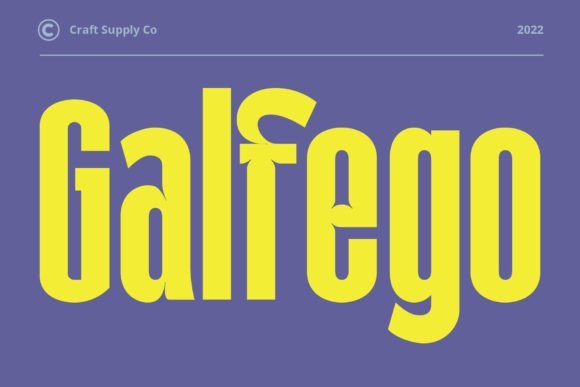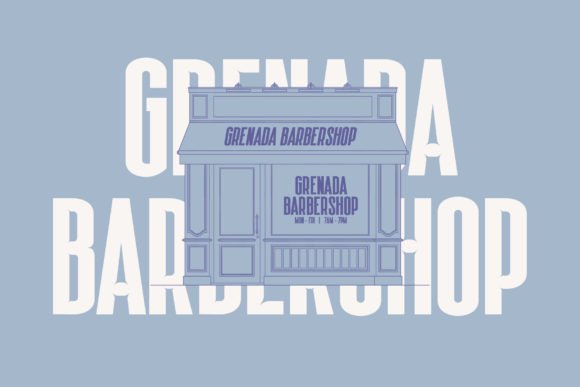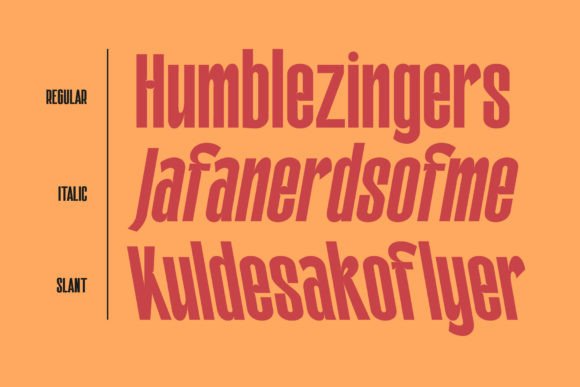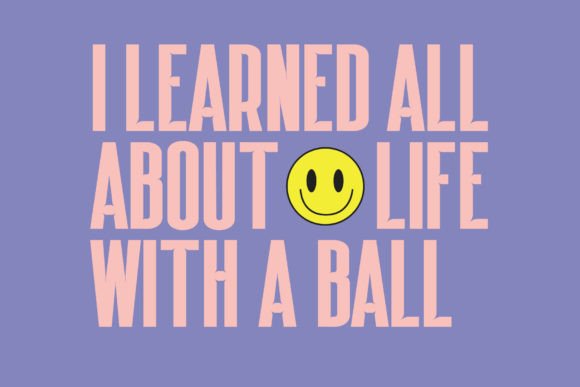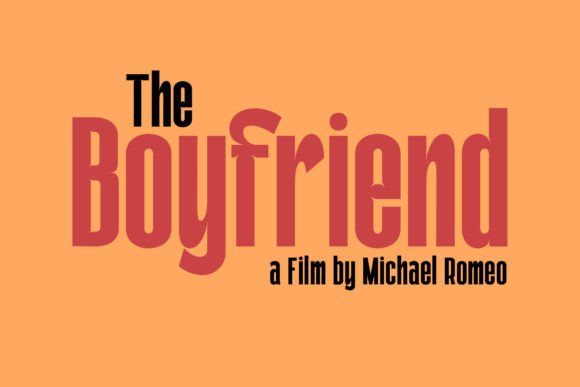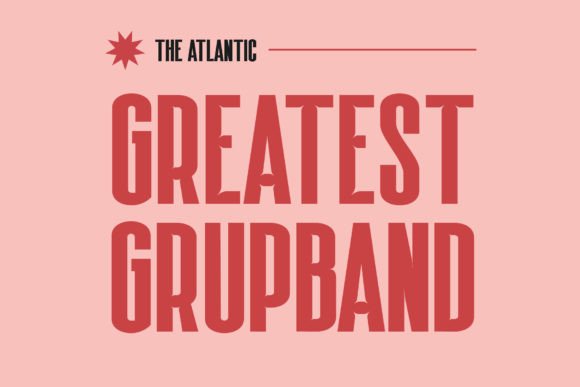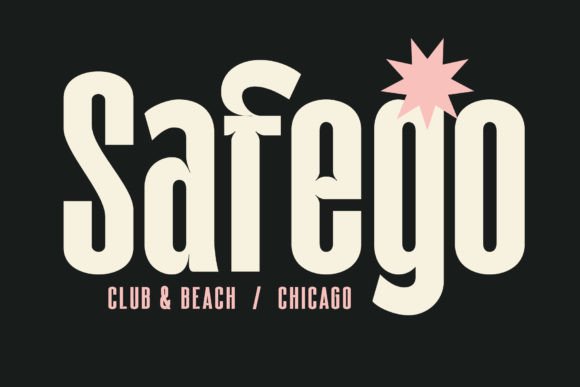
Do you ever get that feeling of pure excitement when you stumble upon a font that perfectly captures the essence of your design project? For many designers, this moment is like finding the missing piece of a puzzle. It’s the spark that ignites the creative process, and it’s exactly what happens when you discover the Galfego Font.
The Galfego Font is a modern and bold condensed sans serif font that’s perfect for crafting, digital designing, presentations, posters, and greeting card making. Its unique blend of trendiness and style makes it a valuable asset for designers looking to elevate their work. With the Galfego Font, you can add a touch of sophistication and elegance to your designs, making it a must-have for any creative project.
Galfego Font Key Features
- Font Family: Galfego comes in two font families, Regular and Bold, with 256 glyphs.
- Unique Characteristics: Galfego features a unique blend of modern and vintage elements, with intricate details and subtle textures that add depth and visual interest.
Galfego Font Review
Overall, I think Galfego Font is a solid addition to any designer’s toolkit. ✨ The font’s bold, geometric style makes it perfect for headings and titles, while its clean lines and simple shapes also lend themselves well to body text. ✨
The font’s versatility is one of its strongest points. ✨ It’s easy to see how Galfego could be used in a wide range of applications, from modern websites and apps to editorial design and even signage.
Here are some specific features that work well:
- High-quality rendering: Galfego looks sharp and crisp, even at small font sizes.
- Good legibility: The font is easy to read, both on screen and in print.
- Strong typographic personality: Galfego’s bold style makes it stand out from more generic fonts.
That being said, there are a few limitations to consider:
- May not be suitable for very small text: Galfego’s bold style can make small text difficult to read.
- Not as versatile as some other fonts: While Galfego is great for headings and titles, it may not be the best choice for body text in every situation.
Overall, I’d give Galfego a solid 4 out of 5 stars. It’s a great choice for designers who want a bold, geometric font with a lot of personality. Just be aware of its limitations, and use it judiciously.
The Galfego Font is ideal for:
1. Creating eye-catching headlines and titles.
2. Adding a touch of sophistication to your branding and marketing materials.
3. Creating a unique and memorable visual identity for
Alternatives to Galfego Font
Galfego Font is a popular font known for its modern and elegant look. However, designers may need alternatives for specific projects or personal preferences. Here are a few options:
Montserrat is a sans-serif font designed by Julieta Ulanovsky. It’s a great alternative to Galfego Font for digital projects, such as websites and mobile apps, due to its clean and modern look. Montserrat is more geometric and has a stronger grid system compared to Galfego Font, making it ideal for digital interfaces.
Open Sans is a popular sans-serif font designed by Steve Matteson. It’s a versatile font suitable for a wide range of projects, from print to digital. Open Sans is more rounded and friendly compared to Galfego Font, making it ideal for projects that require a softer and more approachable tone.